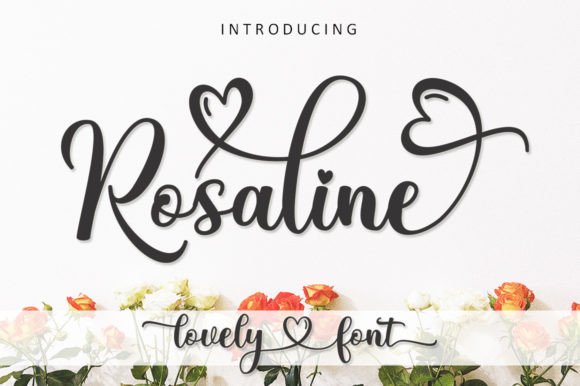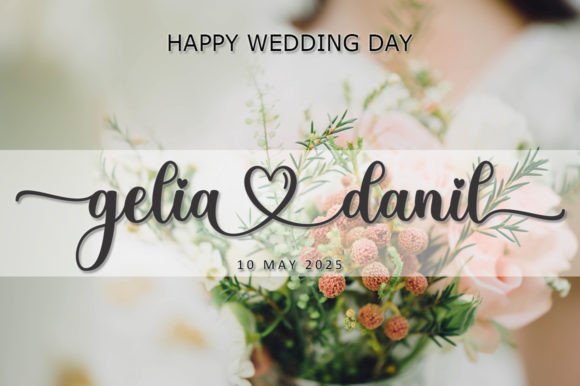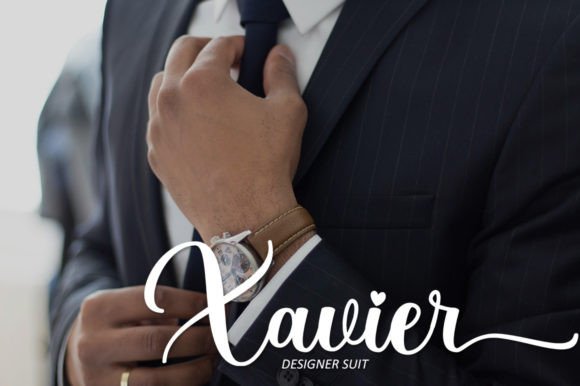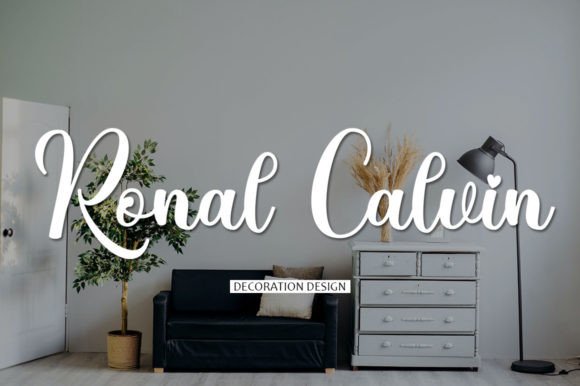
Rosaline Font: A Romantic Script for Wedding Invitations & Cute Designs
About the Rosaline Font
Discover the charm of Rosaline Font. This font is a perfect blend of modern aesthetics and classic appeal. Rosaline is a modern and beautiful script font. It features cute extras that will add a romantic touch toy our designs. Fall in love with its authentic feel and use it to create gorgeous wedding invitations, beautiful stationary art, eye-catching social media posts, and cute greeting cards.
Rosaline’s playful charm makes it ideal for projects requiring a touch of romantic whimsy. It excels in short text applications such as logos, headlines, and short social media captions. Consider it for branding focused on weddings, floral design, or other businesses emphasizing feminine aesthetics. Avoid using it for large blocks of body text or UI elements; its decorative nature compromises readability in extended use.
Pairing Rosaline effectively requires considering its delicate script form. A clean sans-serif like Lato or Open Sans provides a strong contrast and enhances readability when used for supporting text. For a more luxurious feel, consider pairing it with a classic serif like Garamond or a subtly geometric sans-serif like Montserrat.
Rosaline’s overall personality is best described as charming and romantic, yet modern and approachable. It’s versatile enough for various projects but shines brightest when used strategically to add a touch of delicate elegance.